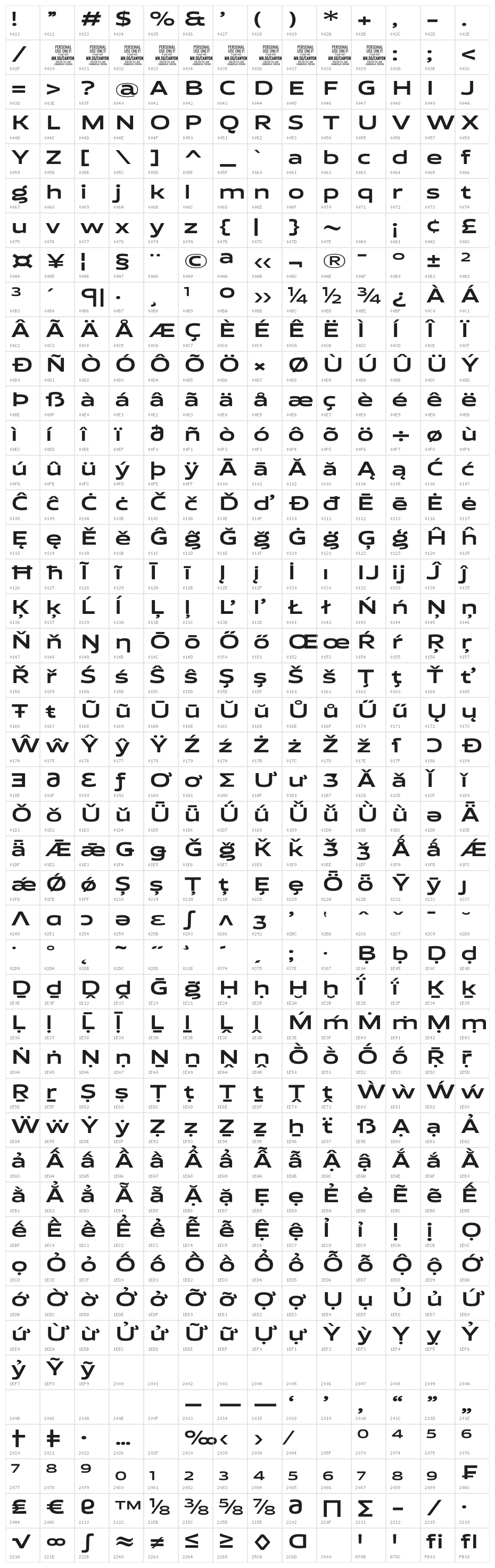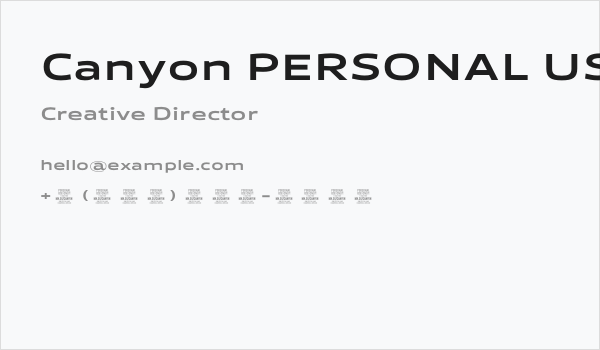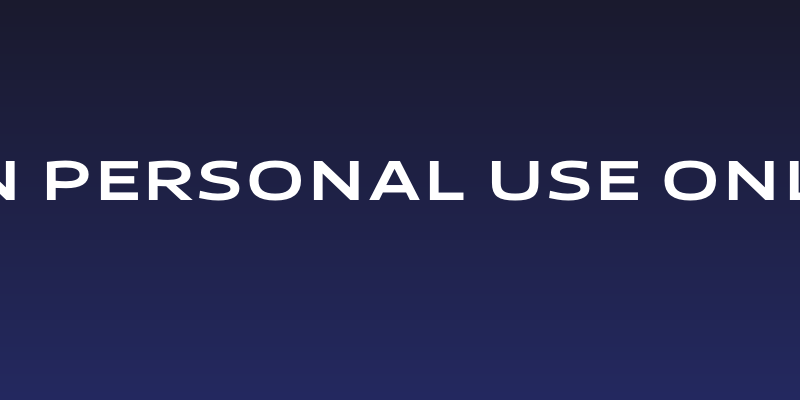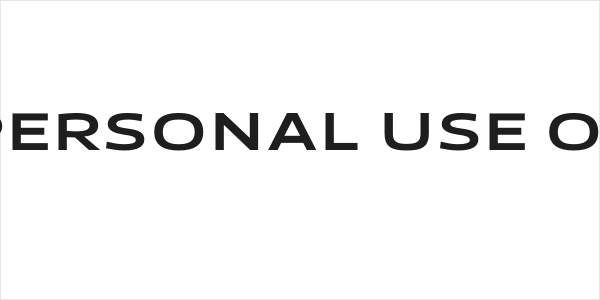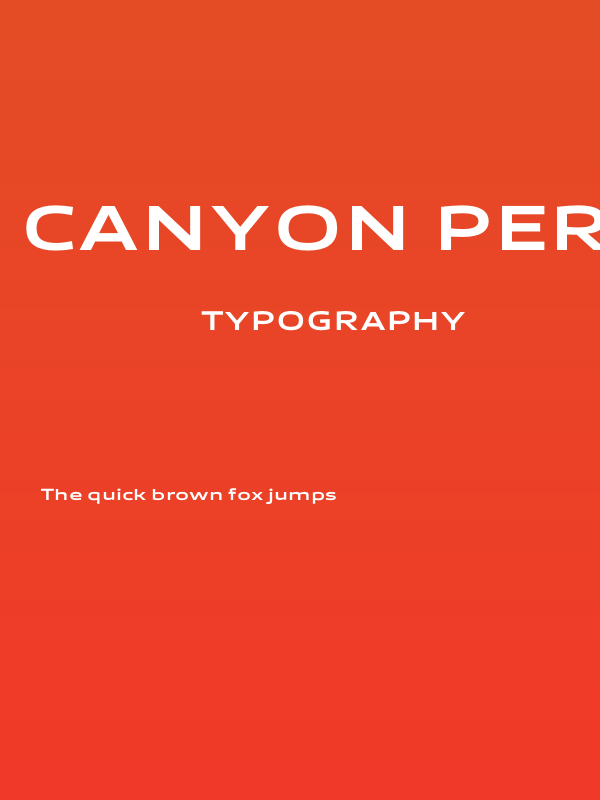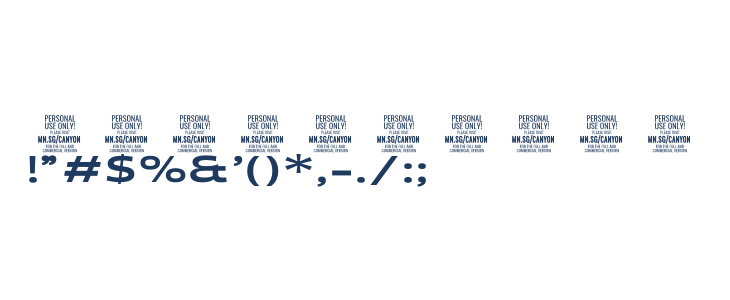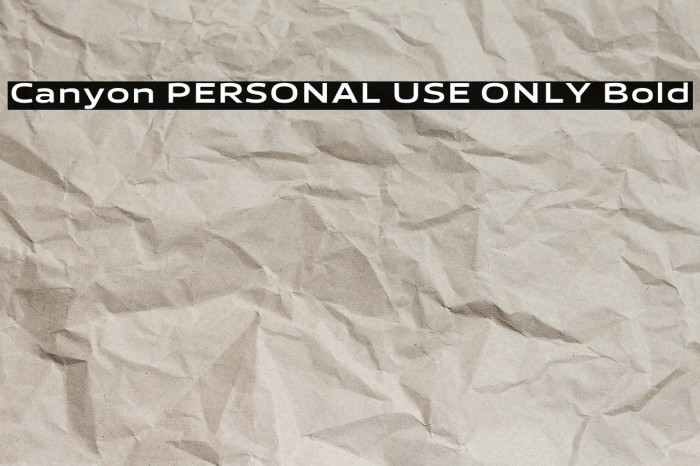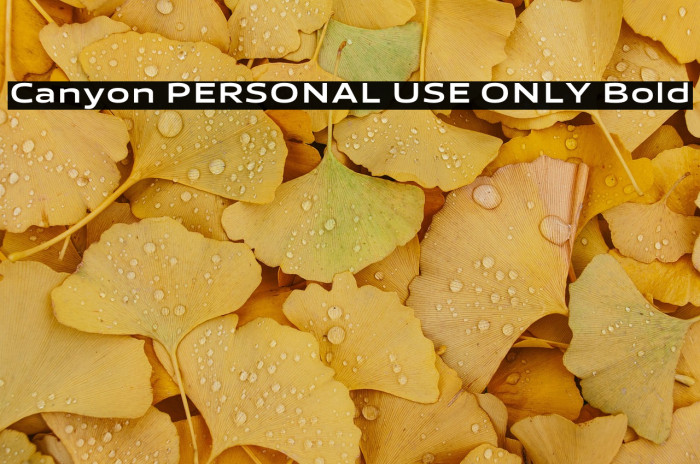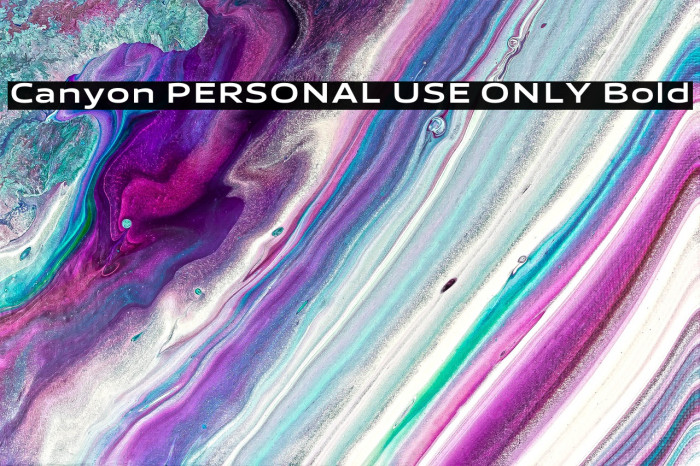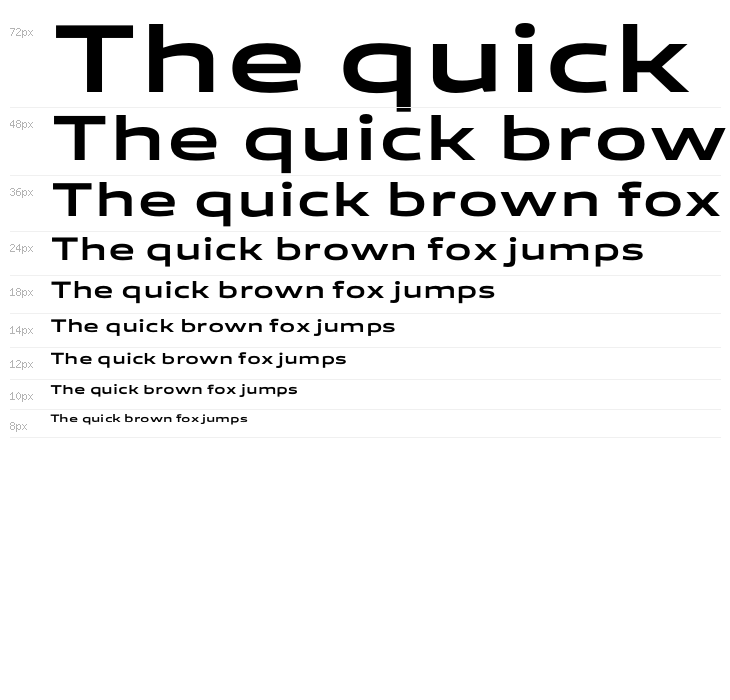
Canyon PERSONAL USE ONLY Bold Font
Canyon PERSONAL USE ONLY Bold Description
This font features a bold and modern sans-serif style with clean lines and a geometric structure. The uppercase letters are uniform in height, providing a strong and cohesive appearance. The lowercase letters maintain a similar width, ensuring readability and balance. The numerals are consistent with the overall design, offering clarity and simplicity. Special characters are well-integrated, maintaining the font's contemporary aesthetic. This font is versatile, suitable for various design applications where a bold statement is needed.